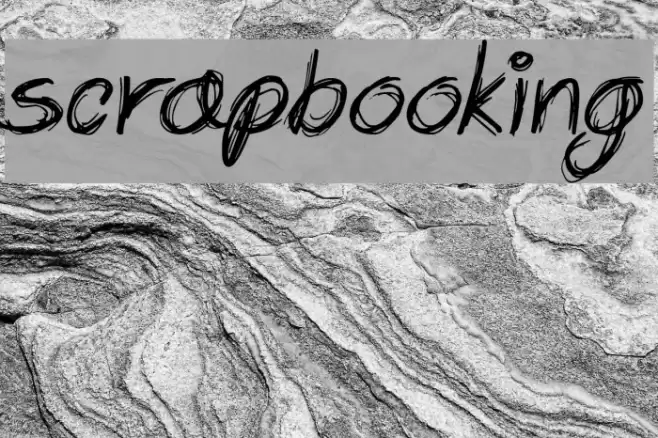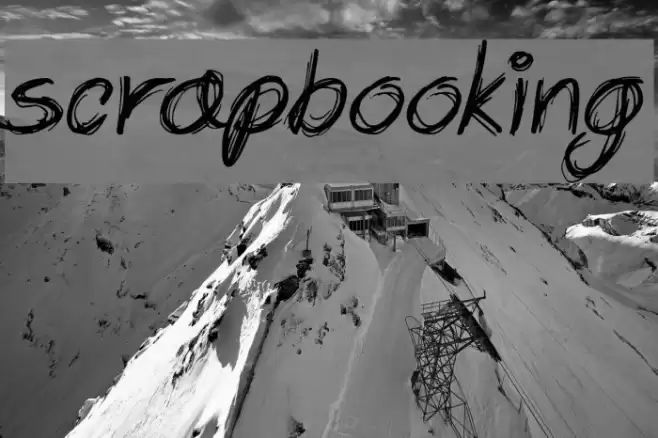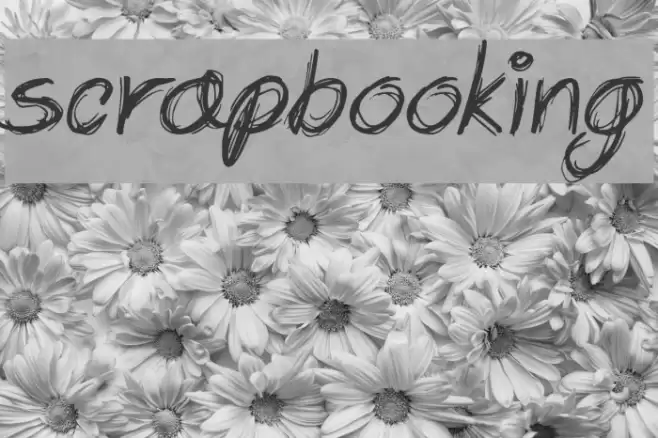
Scrapbooking Font
Scrapbooking Description
This font features a playful and artistic style, characterized by its hand-drawn appearance. The letters are crafted with a brush-like texture, giving them a dynamic and energetic feel. Each character has a unique, slightly irregular shape, adding to the font's charm and individuality. The strokes are bold and expressive, with varying thickness that creates a sense of movement and spontaneity. This font is perfect for creative projects that require a personal touch, such as scrapbooking, greeting cards, or artistic posters. Its whimsical nature makes it ideal for conveying a sense of fun and creativity.
A playful, hand-drawn font with a brush-like texture and dynamic strokes from Uncategorized fonts.
- Proposed Projects: Ideal for scrapbooking, greeting cards, artistic posters, and creative projects.
- Use Case: Logos, Headlines, Artistic projects